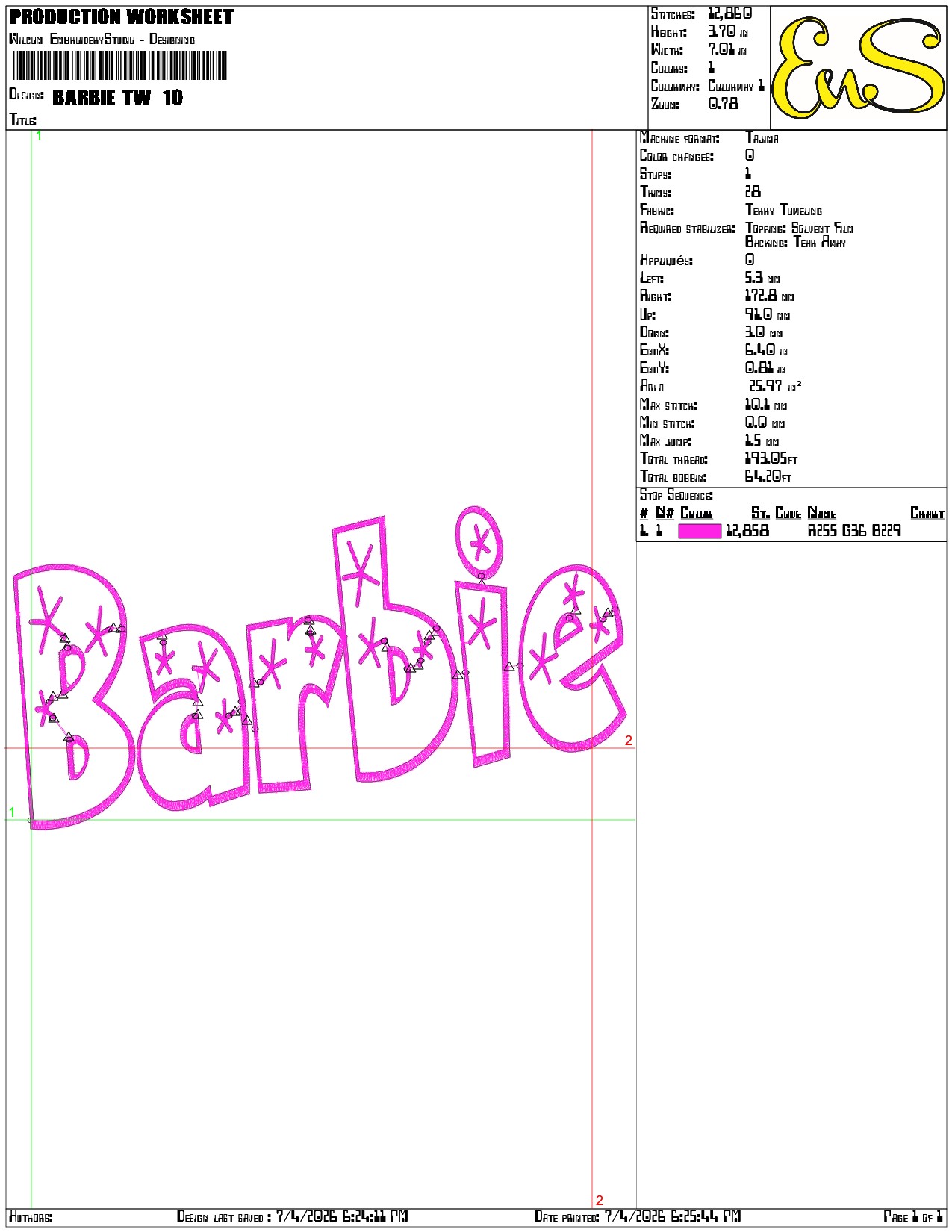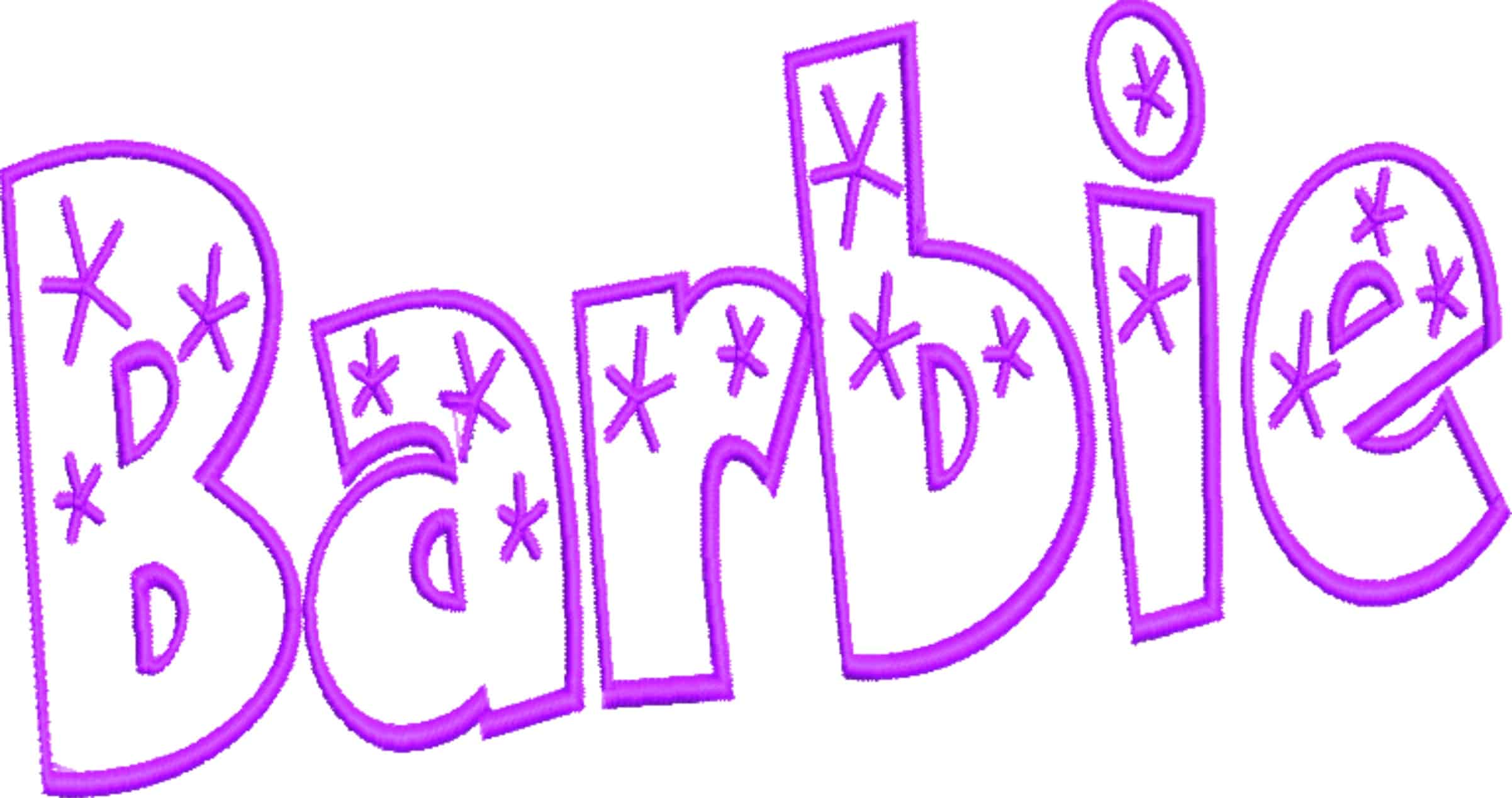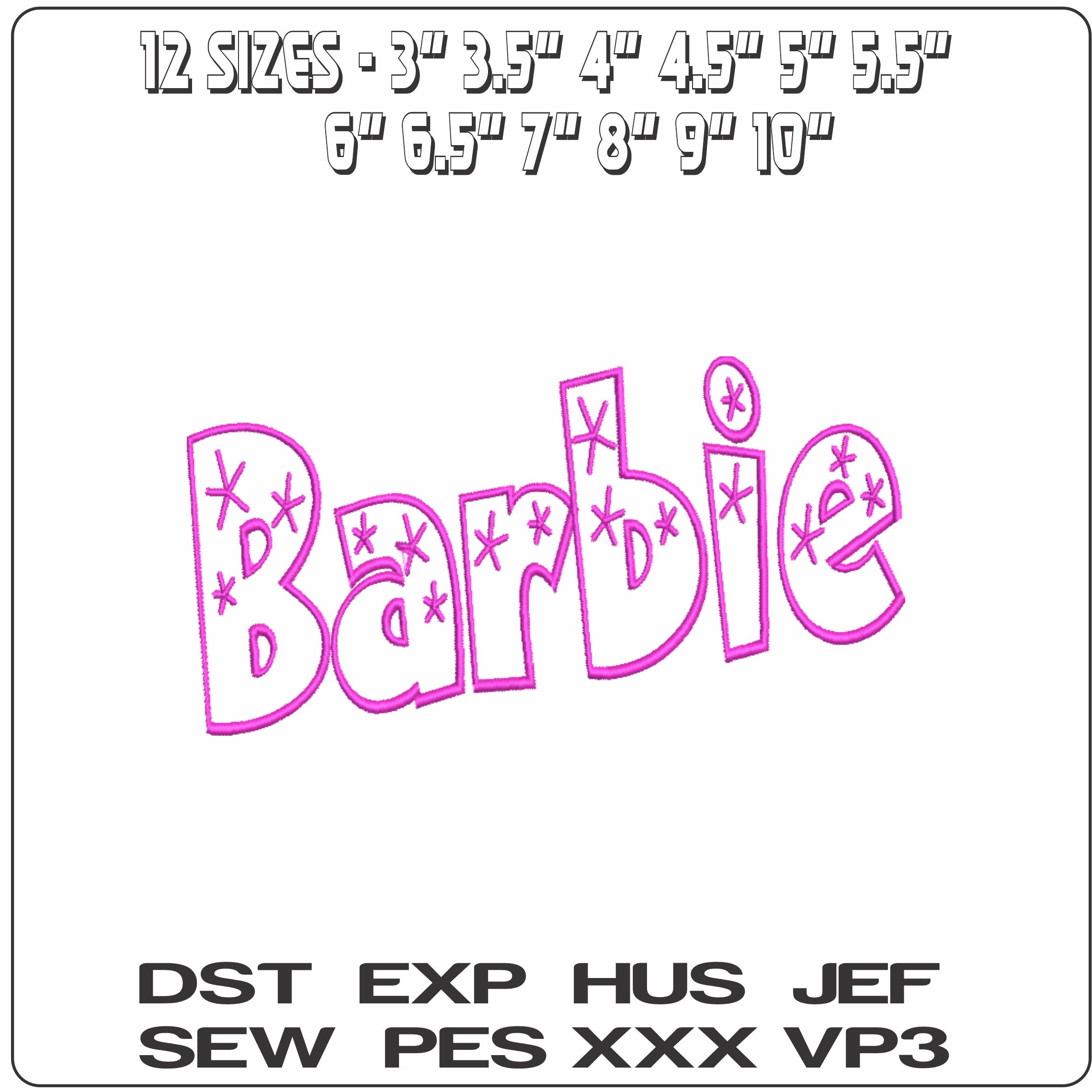
Barbie text embroidery design Pink Barbie Twinkle Font Logo design machine pattern embroidery file instant download in a frame
Playful Barbie lettering with twinkle accents adds an instantly recognisable pink pop to jackets, bags and girls’ clothing.
Bring playful pink Barbie lettering to a jacket, tote or bedroom accessory with this stylised name design. The rounded bubble-style letters and little asterisk-like twinkles give it that familiar girly look without needing extra fuss around it. It suits children’s makes, Barbie fans and anyone putting together bright, feminine custom pieces.
Because the design is open and lightly stitched, it keeps a softer, less heavy feel on fabric than a dense block of text. It works especially well on sweatshirts, denim jackets, cotton pyjamas, canvas bags and cushion covers where the bold word can sit front and centre. The single-colour stitching lets the shape of the Barbie text do the work, while the fabric underneath helps the clean, graphic style stand out.